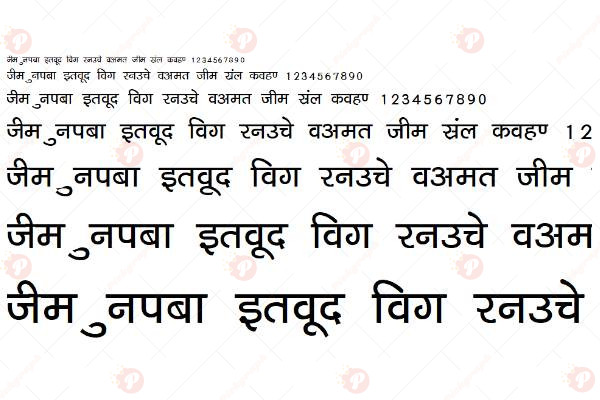
The Kurti Dev Bold Font is a powerful Devanagari typeface designed for Hindi and Sanskrit texts that need extra impact. With its bold and prominent strokes, this font ensures high readability and attention-grabbing style, making it perfect for religious books, cultural banners, posters, invitations, magazine covers, devotional artworks, and branding projects.
Its traditional aesthetic with a bold weight provides both authenticity and strength, making it ideal for projects where you want to highlight devotion, culture, or spiritual themes.
Script: Devanagari (Hindi/Sanskrit)
Style: Bold / Traditional / Cultural Typeface
Perfect for: Festival Posters, Religious Invitations, Temple Banners, Devotional Books, Cultural Branding, Social Media Design
| Optimum Size | Large (Display / Poster) |